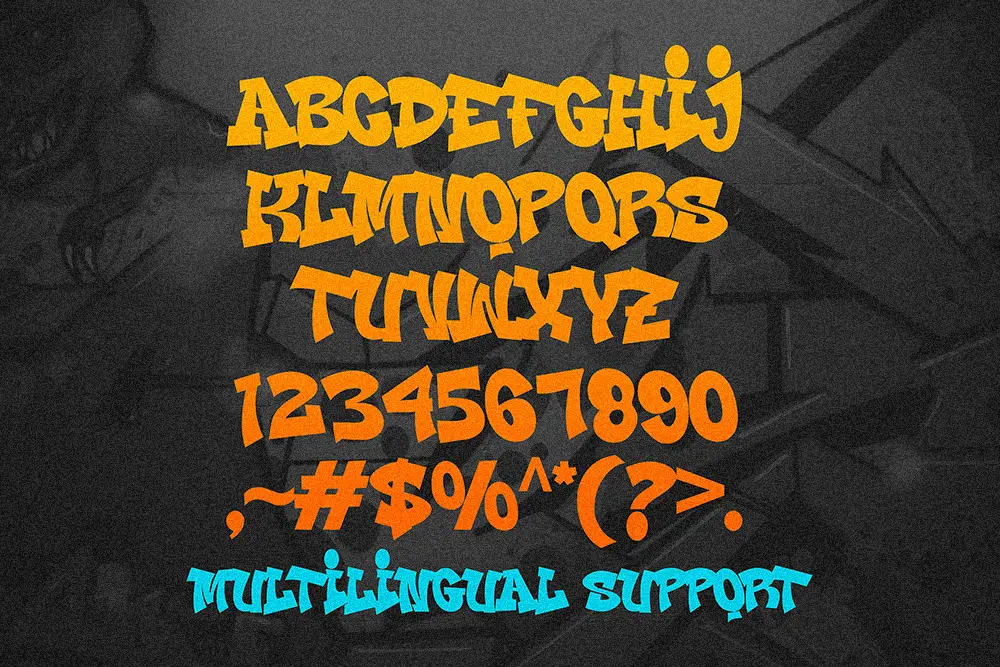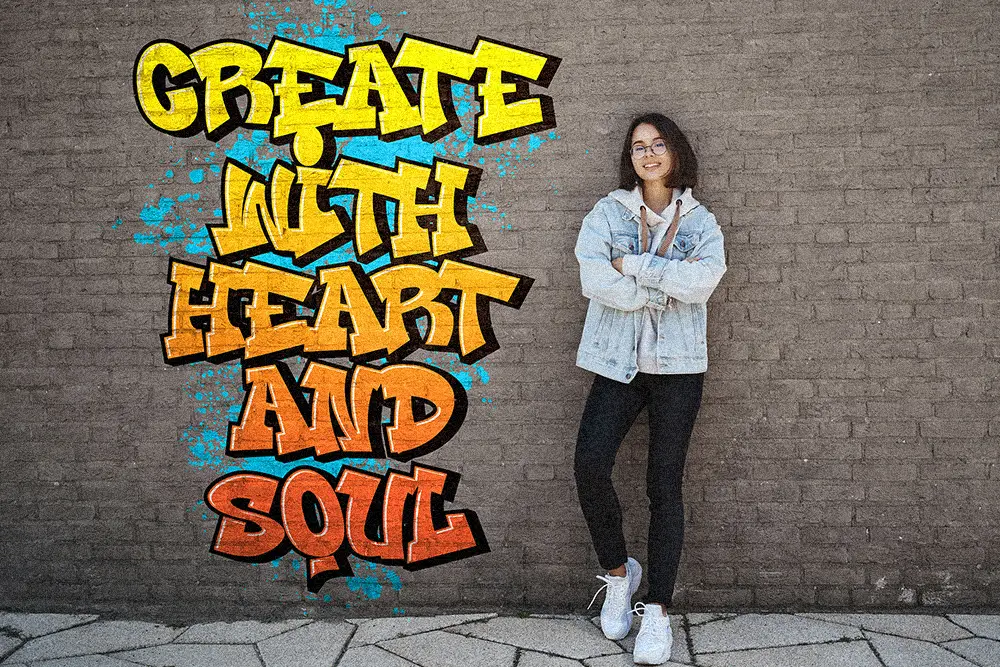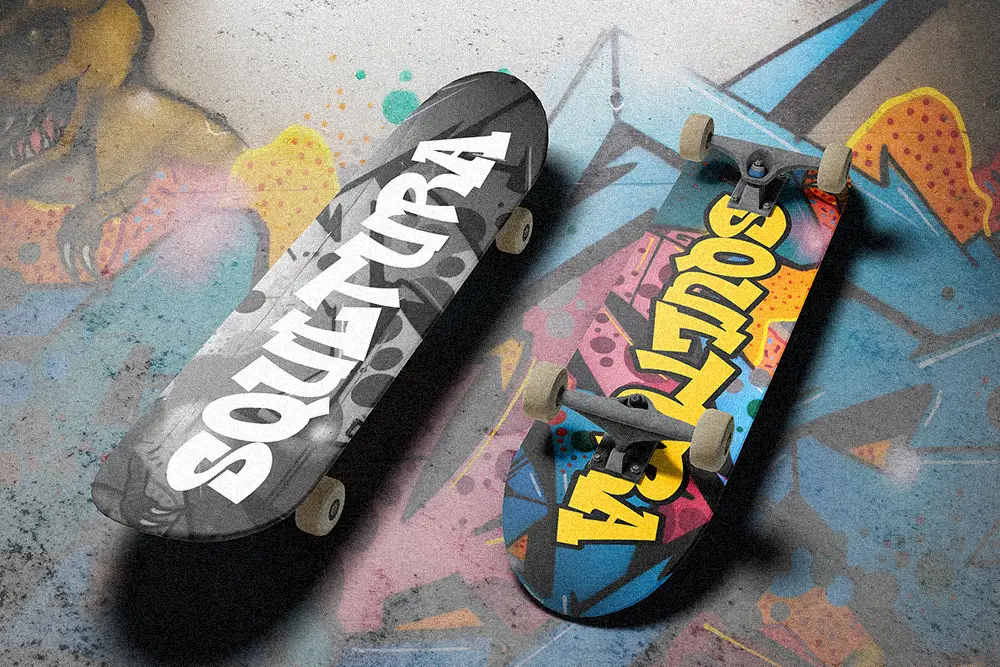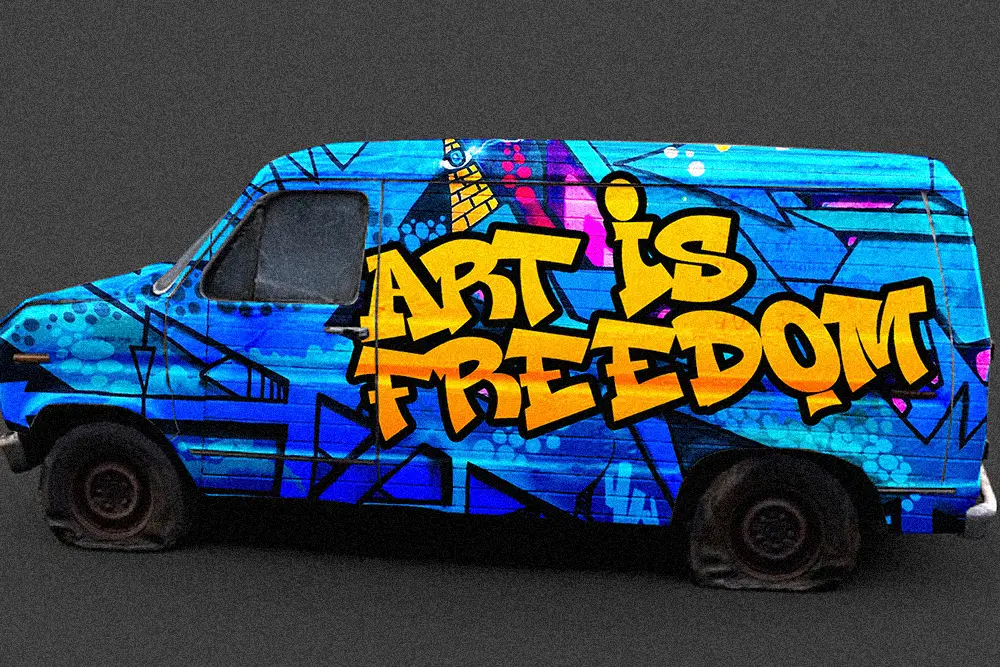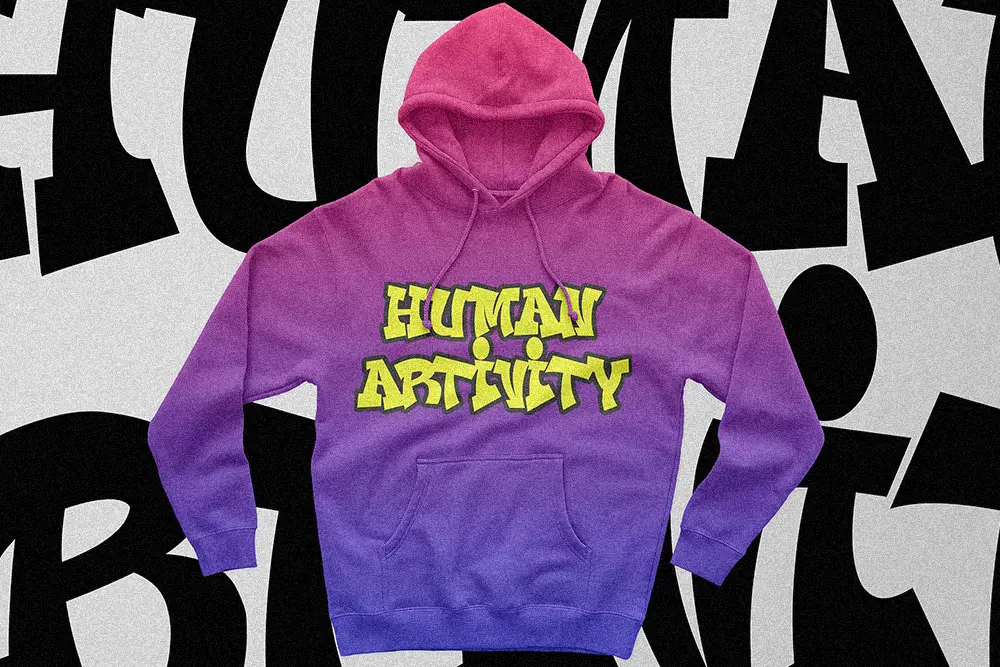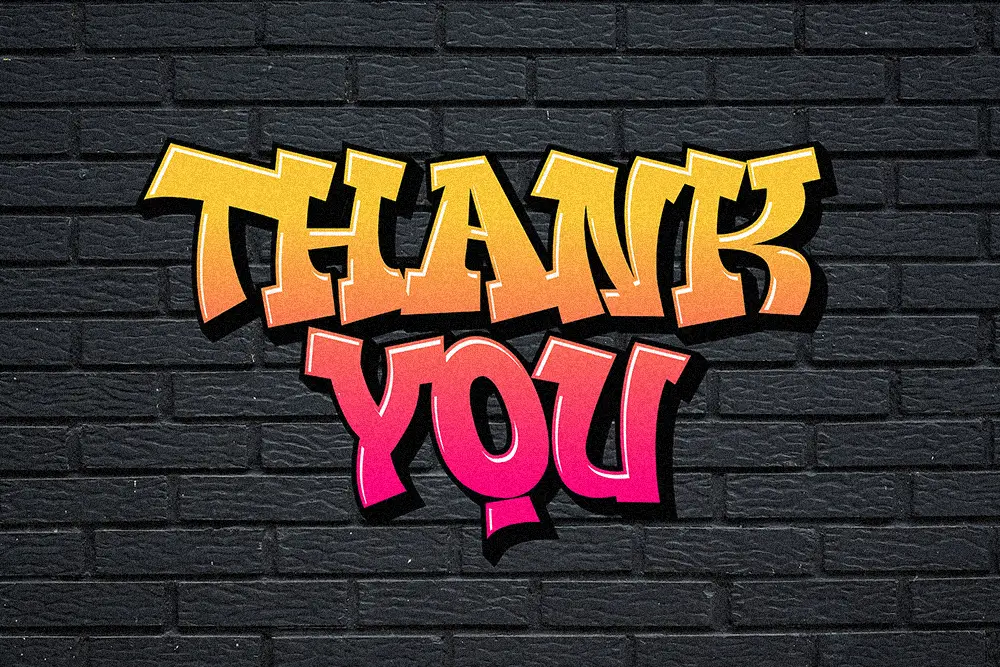
Urban Graffiti Font That Ignites Bold Creativity
When you need your design to shout, not whisper — Fast Blaze delivers. This urban graffiti font is a powerhouse of style and attitude, crafted to bring rebellious energy to your digital creations. Whether you’re designing album covers, YouTube thumbnails, event posters, or digital artwork, Fast Blaze makes every word feel like a wild spray across a concrete wall.
Designed in All Caps for ultimate impact, Fast Blaze captures the spirit of graffiti culture with bold strokes, sharp edges, and authentic handstyle energy. Every letter looks like it just came from a freshly painted urban mural — expressive, raw, and unforgettable. Its multilingual support also ensures your message reaches across cultures without losing its punch.
Key Features of Fast Blaze – Urban Graffiti Font:
- All Caps Characters for bold, loud design
- Multilingual Support (Latin characters)
- Optimized for both print and digital media
- Authentic street-style graffiti strokes
- Versatile for many creative themes: music, sports, games, and more
- Clean spacing and well-kerned for pro-level results
Why Designers Love Fast Blaze
Designers can’t get enough of Fast Blaze because it combines street credibility with technical polish. The font feels gritty and raw — perfect for those looking to add edge and attitude to their projects. Yet it’s also carefully designed for smooth use in real-world design scenarios, from screen printing to digital graphics.
When used in branding or creative social media campaigns, Fast Blaze creates visual storytelling that resonates with energy, confidence, and rebellion. That’s why it’s become a go-to urban graffiti font for those who dare to break design rules.
Let Your Words Burn with Style
Whether you’re a digital artist, music producer, illustrator, or content creator, Fast Blaze is the graffiti font that sets your work on fire. Its aggressive shapes and confident presence grab attention instantly, leaving a mark wherever it goes.
From poster designs to urban-inspired branding and edgy packaging — Fast Blaze offers that unapologetic attitude that’s impossible to ignore. This is more than a font. This is urban expression in typographic form.
Powerfully Bold. Unmistakably Street. Absolutely Fast Blaze.
Give your words the street-style swagger they deserve with Fast Blaze — the ultimate urban graffiti font that turns simple text into raw art.